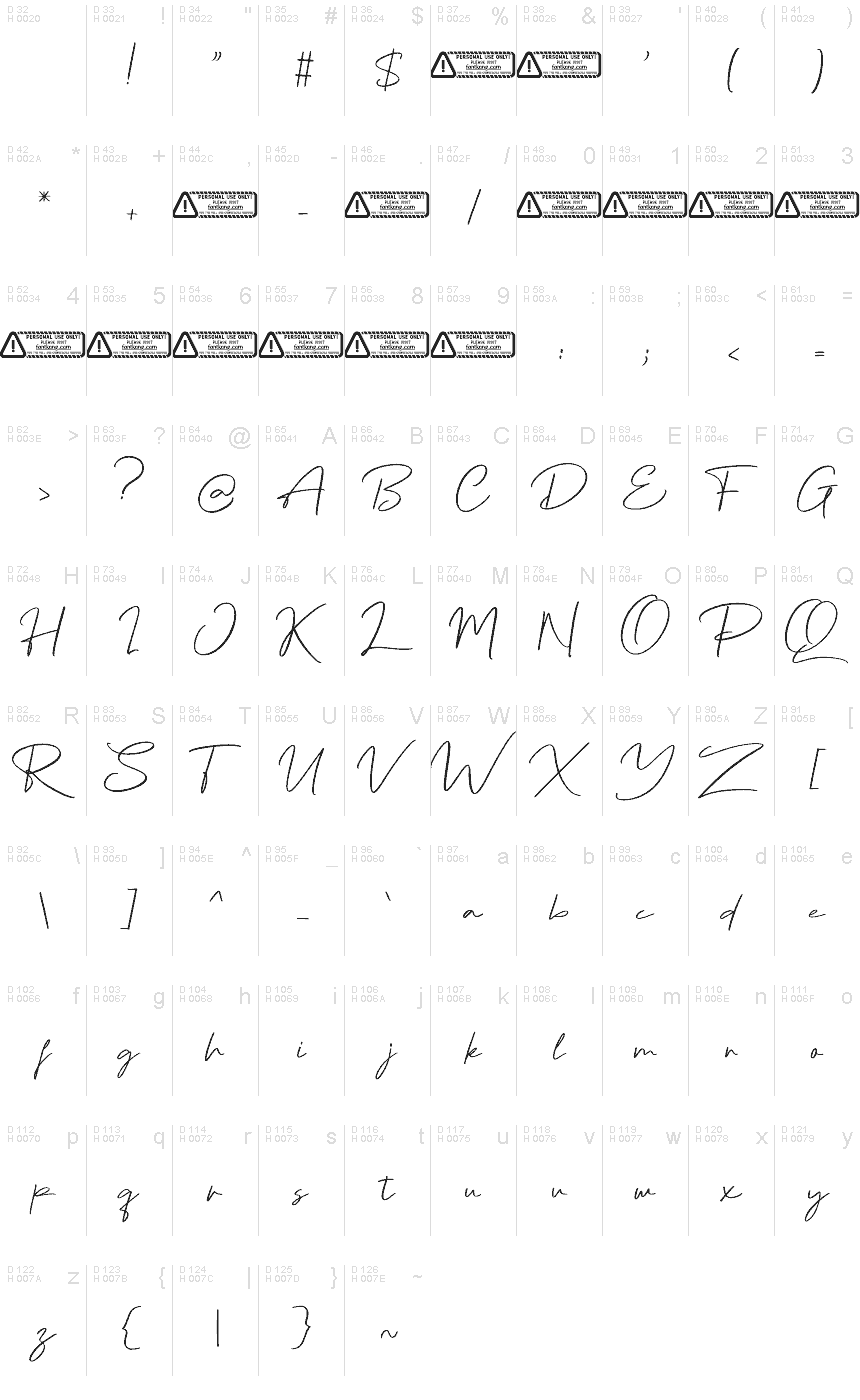
Heybrader font by Kong Font is a light handwritten font with elegant flowing letters. Sophisticated and modern, it’s the exact typography style that has become very popular in recent years. It’s stylish, simple, minimalistic, and communicates an idea of luxurious women-targeted branding. Heybrader exudes flowing simplicity suggesting you can make your dreams come true. This is definitely the right font for designers looking to add a classy touch to their current artwork.
Free handwritten font Heybrader perfectly suits logo designs and many other branding and identity projects such as business cards, websites, product labels, or corporate invites among others.